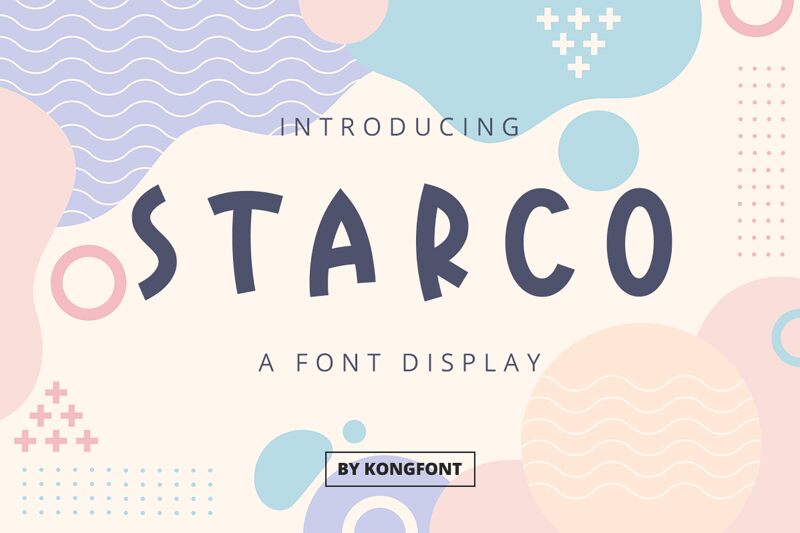
Starco
Starco, the playful display font designed by Kong Font, is the perfect choice for projects that require a touch of fun and whimsy. With its semi-light weight and semi-condensed width, this comic-style typeface will add a unique flair to any design. Whether you're creating a children's book cover, designing an eye-catching logo, or adding personality to your website headers, Starco is sure to stand out. Its bold letterforms and distinctive curves make it easy to read at any size while still capturing attention. So why settle for boring typography when you can let Starco brighten up your next project?